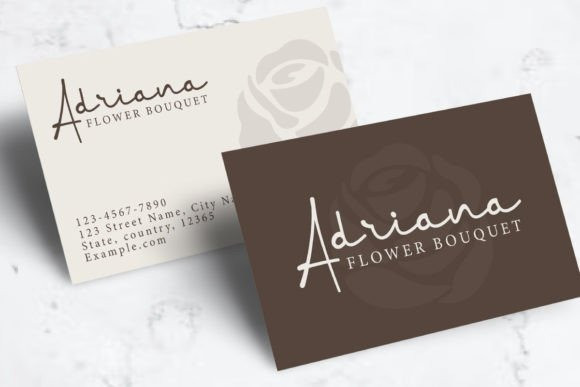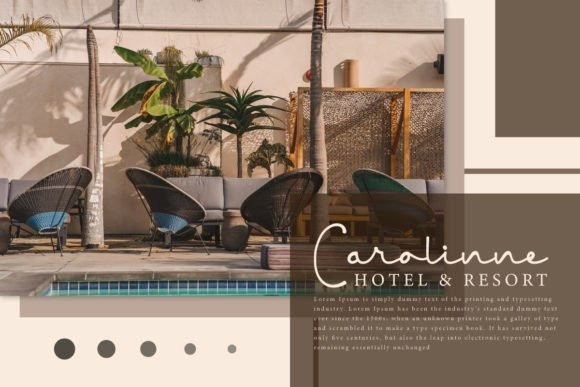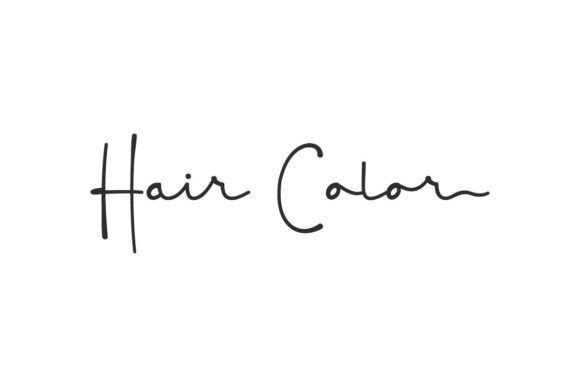
Hair Color Handwriting Font
Hair Color Handwriting Font is a casual and neat handwritten script font. Fall in love with its natural style and use it to create unique designs.